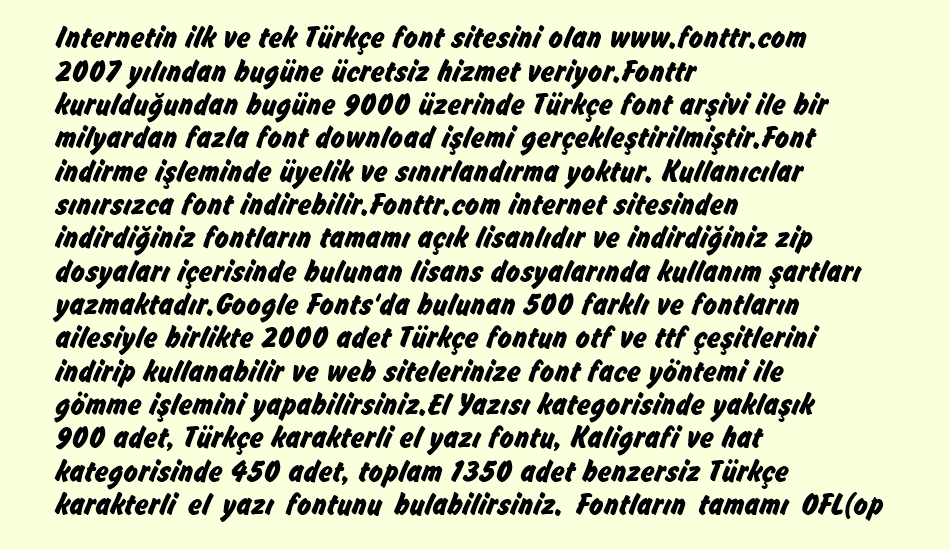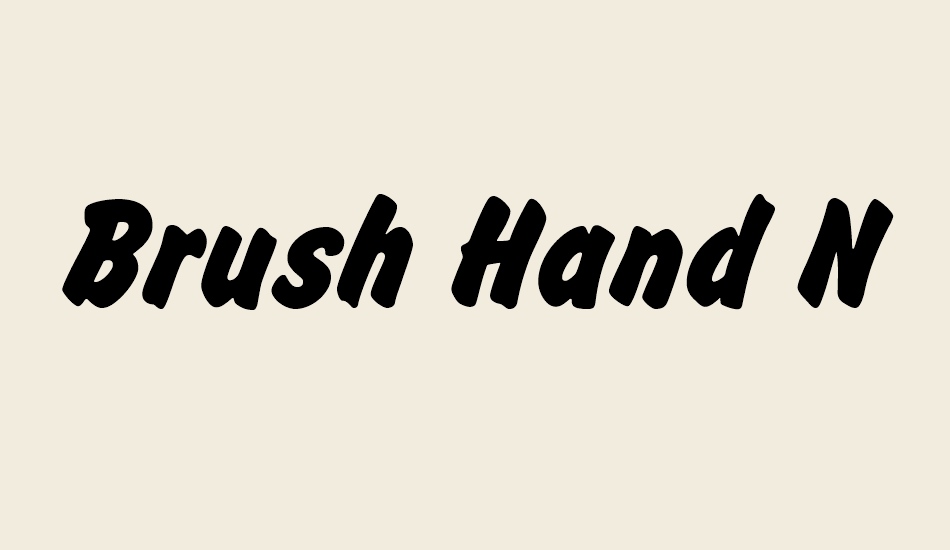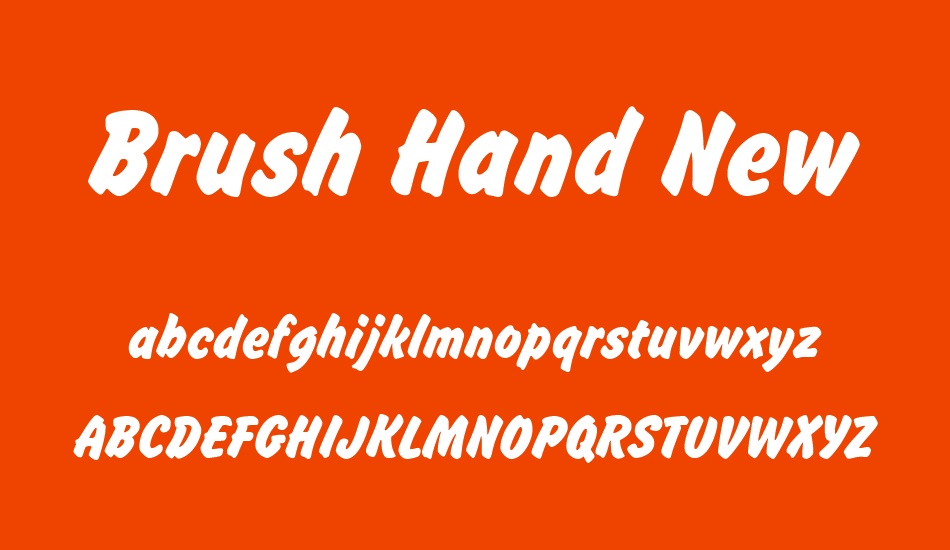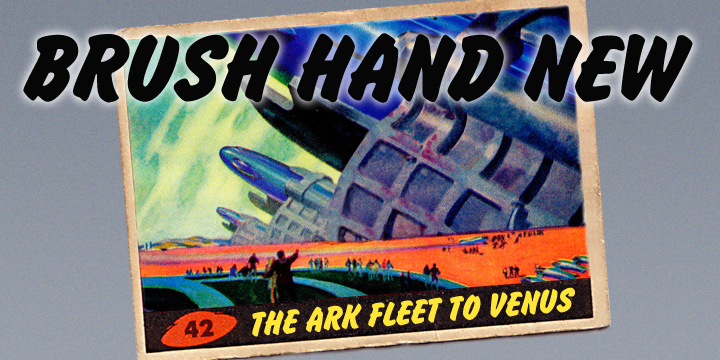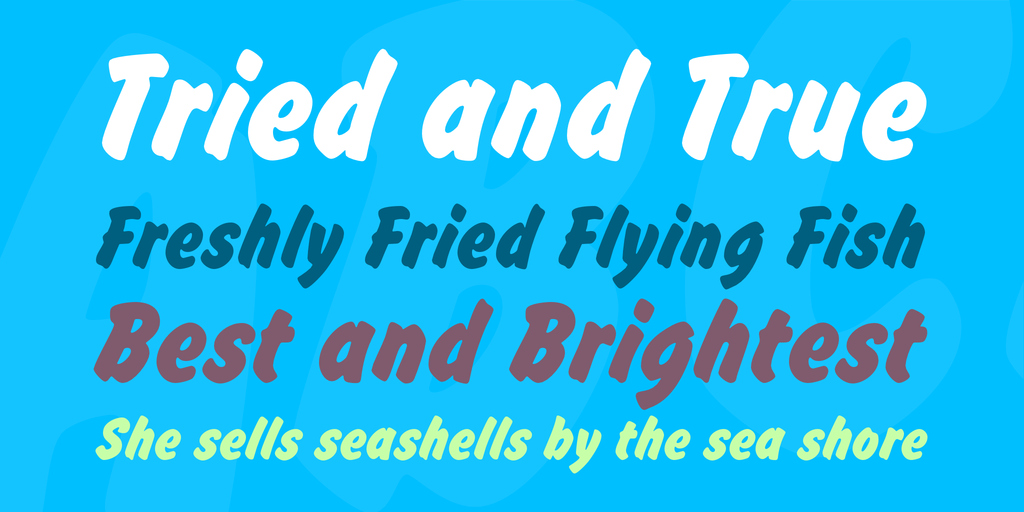
=== BRUSH HAND NEW ===
Keith Bates / K-Type © 2013 (version 1.1)
Brush Hand New is a full font based on a copy of Flash Bold called Brush Hand marketed by WSI in the 1990s and more recently distributed through free font sites. Brush Hand was an anonymous redrawing of Flash which simplified, slightly lightened, smoothed out ragged edges, and improved the legibility of the original classic created by Edwin W. Shaar in 1939.
K-Type's New version makes the simplification more refined. Outlines are improved to remove any remaining harshness, resulting in softer, smoother flowing glyphs ideal for titles and display purposes. The letterspacing of the New version is better, the old Brush Hand was spaced erratically and set too loosely. Poorly drafted characters have been redrawn, and a more comprehensive repertoire includes European accented characters.